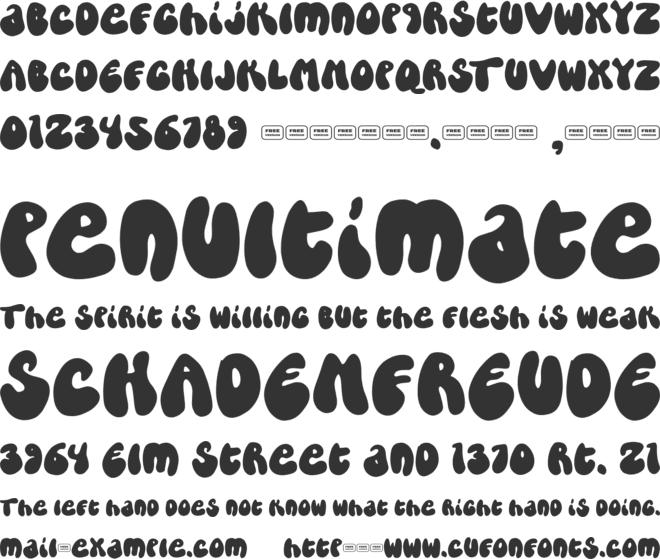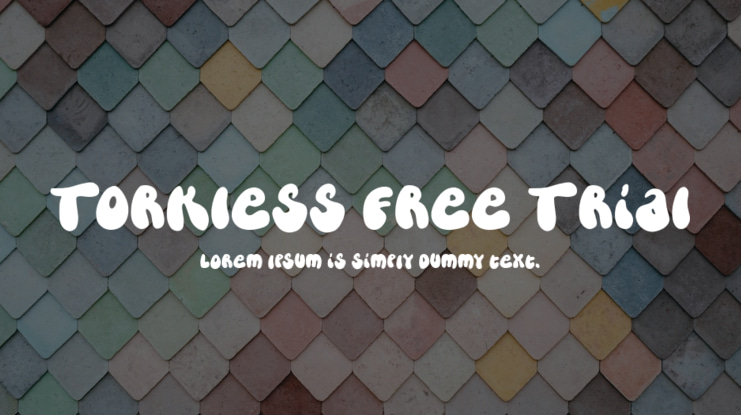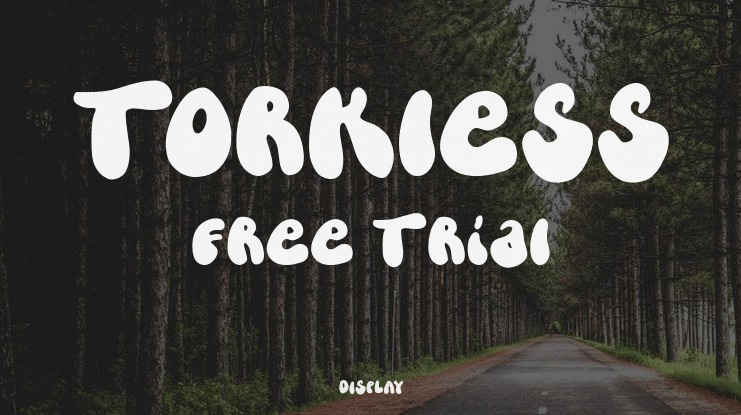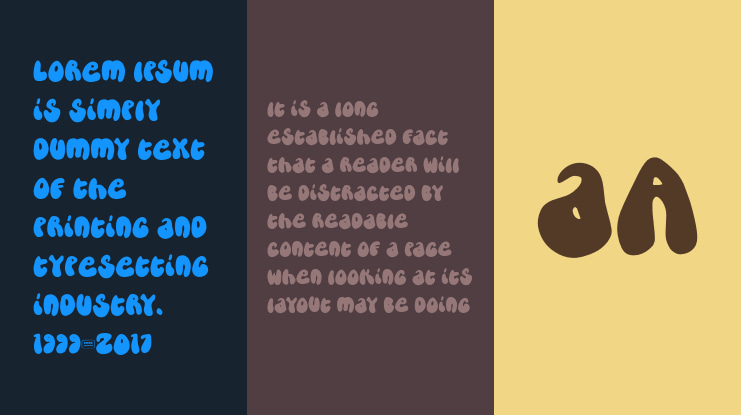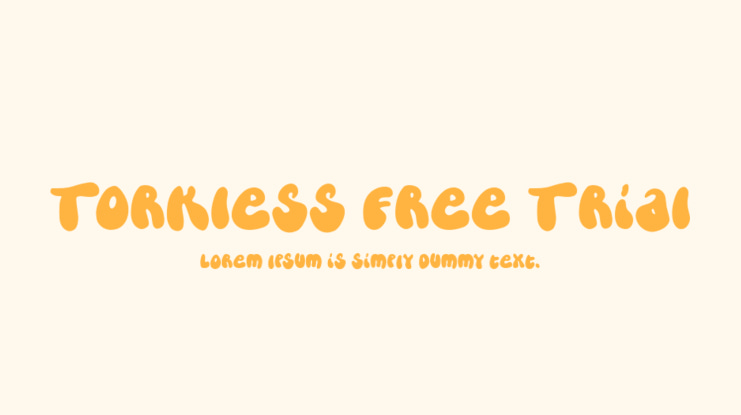
Torkless Free Trial Font
Step back in time with "Torkless" - a groovy retro font that brings the funky vibes of the past to your designs!
With its playful and nostalgic letterforms, "Torkless" captures the essence of the groovy era. Each character is meticulously designed to infuse your projects with retro charm, making it perfect for vintage branding, nostalgic posters, throwback graphics, and more.
Embrace the retro allure of "Torkless" as it effortlessly enhances your designs. Whether you're creating funky album covers, disco-inspired logos, colorful event invitations, or eye-catching social media content, this font will captivate your audience with its groovy and vibrant style.
Dive into the world of nostalgia with "Torkless" and let your designs groove to the rhythm of the past!